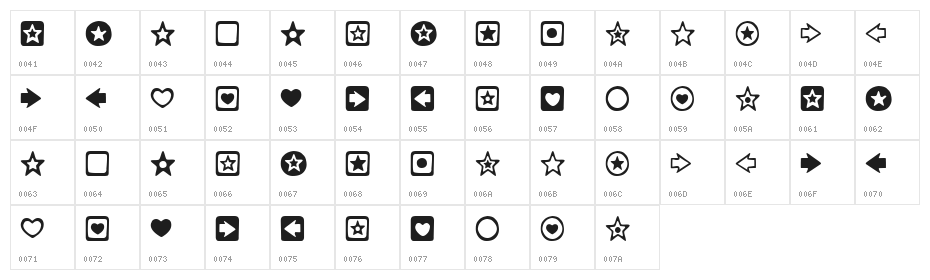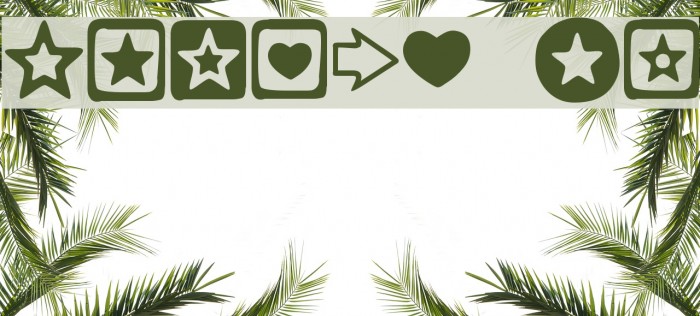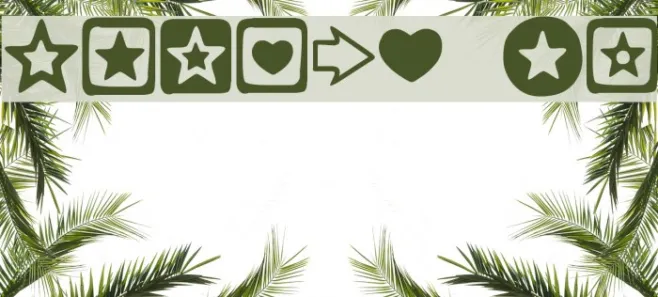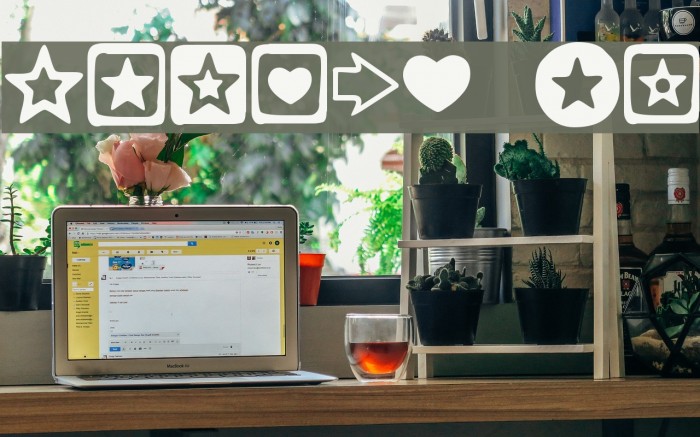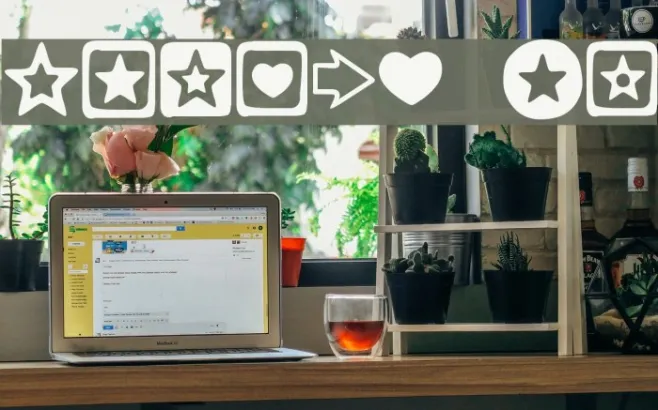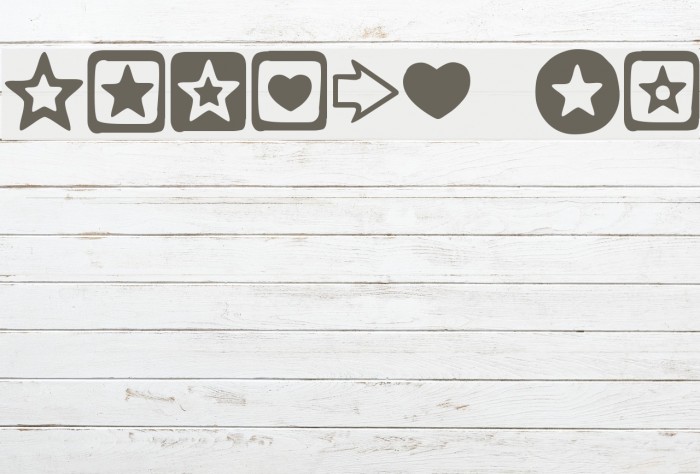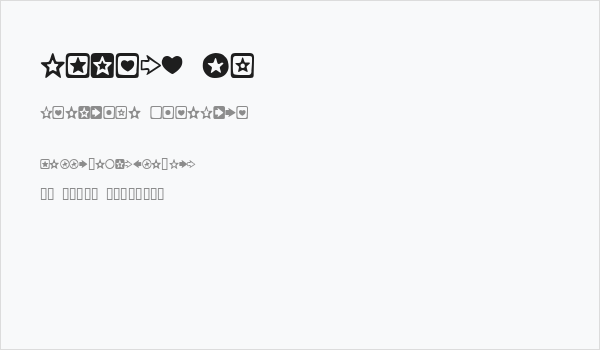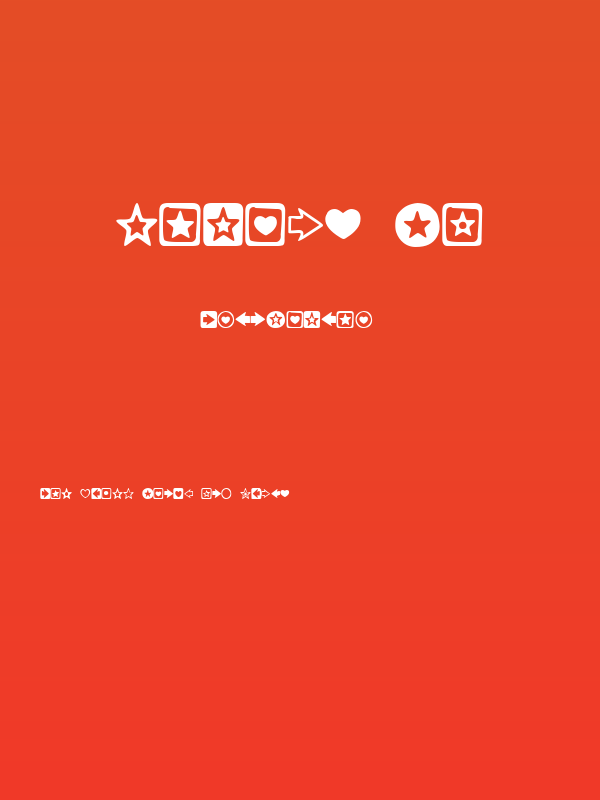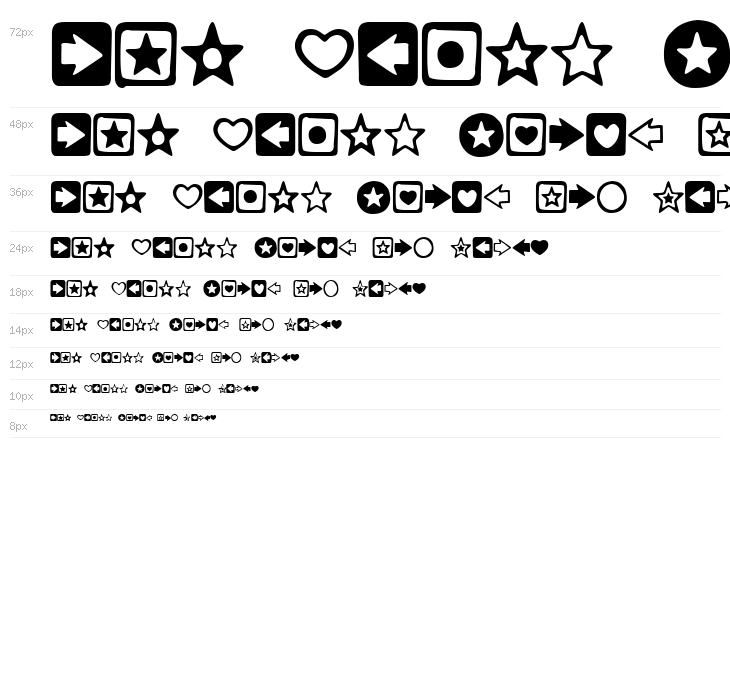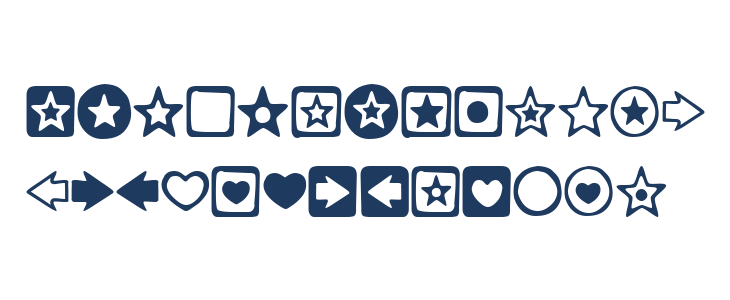
Charms BV Font
Charms BV Description
This is a decorative font composed entirely of symbols and shapes, including stars, hearts, arrows, and various geometric forms. The characters are bold and filled, with some outlined versions providing contrast. The design is playful and whimsical, making it suitable for creative projects that require a unique and eye-catching style. The symbols are evenly spaced, ensuring clarity and readability despite the unconventional nature of the font. The overall aesthetic is modern and fun, appealing to a wide range of audiences looking for something distinctive.
| Use Case | Logos, Posters, Creative Projects |
| Proposed Projects | Ideal for greeting cards, children's book illustrations, playful branding, and creative posters. |